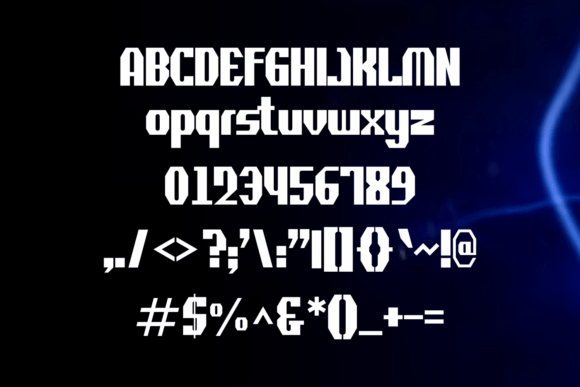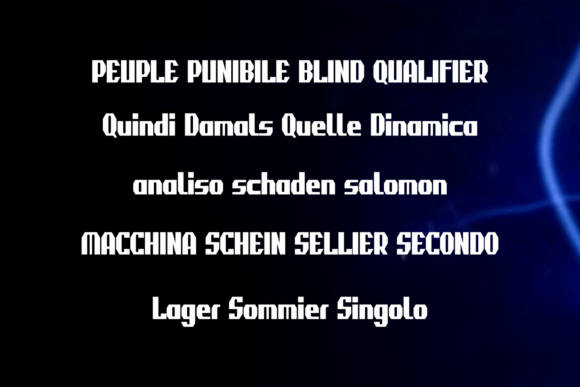
Amsador Font: Elevate Your Designs with a Cool and Unique Sans Serif Font
Are you tired of using the same old fonts in your designs? Look no further than Amsador, a cool and unique sans serif font that’s sure to take your creations to the next level. In this article, we’ll dive into the features and benefits of Amsador, and explore how it can become an incredible asset to your font library.
The Power of Sans Serif Fonts
Sans serif fonts have become a staple in modern design, and for good reason. They offer a clean and minimalist aesthetic that’s perfect for a wide range of applications, from digital media to print materials. But with so many sans serif fonts out there, it can be hard to stand out from the crowd. That’s where Amsador comes in.
What Makes Amsador Special?
Amsador is more than just another sans serif font. Its unique design and cool vibe make it a standout in any font library. Here are just a few features that set Amsador apart:
- Clean and Minimalist Design: Amsador’s sans serif design is perfect for creating clean and modern designs that get straight to the point.
- Unique Character Set: Amsador’s character set is designed to be both stylish and versatile, making it perfect for a wide range of applications.
- Highly Legible: Amsador’s font is designed to be highly legible, even at small sizes, making it perfect for digital media and body text.
How Amsador Can Elevate Your Designs
So how can Amsador elevate your designs? Here are just a few examples:
- Branding and Identity: Amsador’s unique design makes it perfect for creating custom branding and identity materials that stand out from the crowd.
- Digital Media: Amsador’s clean and modern design makes it perfect for digital media, including websites, social media graphics, and more.
- Print Materials: Amsador’s highly legible design makes it perfect for print materials, including brochures, flyers, and more.
Why Amsador is a Great Addition to Your Font Library
So why should you add Amsador to your font library? Here are just a few reasons:
- Versatility: Amsador can be used for a wide range of applications, from digital media to print materials.
- Uniqueness: Amsador’s unique design makes it a standout in any font library, ensuring that your designs will stand out from the crowd.
- Legibility: Amsador’s highly legible design makes it perfect for body text and other applications where readability is key.
In conclusion, Amsador is a cool and unique sans serif font that’s sure to elevate your designs. With its clean and minimalist design, unique character set, and highly legible font, Amsador is the perfect addition to any font library. Whether you’re a designer, crafter, or simply someone looking to take your designs to the next level, Amsador is a must-have font that’s sure to deliver.